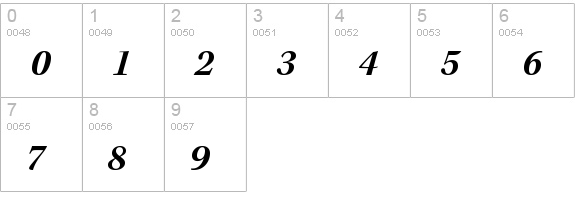
Kepler Std Semibold Italic Font Details
Kepler Std Semibold Italic is a sub-bold, structured, italic variant in the Kepler typeface family \xE2\x80\x94 well suited to sub-headlines and emphasised passages.
Kepler Std Semibold Italic font is a stylish and modern typeface that exudes elegance and sophistication. Its bold and slanted design adds a touch of flair to any project, making it perfect for both print and digital applications. This font features strong and well-defined letterforms, with slightly exaggerated curves that create a sense of movement and dynamism. The semibold weight adds a level of visual weight and prominence, making it ideal for headlines, titles, and other attention-grabbing elements. The italicized style of Kepler Std Semibold Italic font adds a subtle touch of emphasis and emphasis, making it perfect for conveying a sense of importance or urgency. Whether it's used for branding, advertising, or editorial design, this font will surely make a lasting impression. One of the best features of Kepler Std Semibold Italic font is that it is freely available to download at FontsMarket.com. This means that designers, creatives, and typographers can easily access and utilize this stunning typeface without any financial barriers. Its availability for free download allows for greater flexibility and accessibility, making it a popular choice for both personal and commercial projects. So, whether you're designing a logo, creating a website, or working on a poster, Kepler Std Semibold Italic font is the perfect choice to elevate your design to new heights. Its boldness, elegance, and availability make it a must-have for any designer's font library.